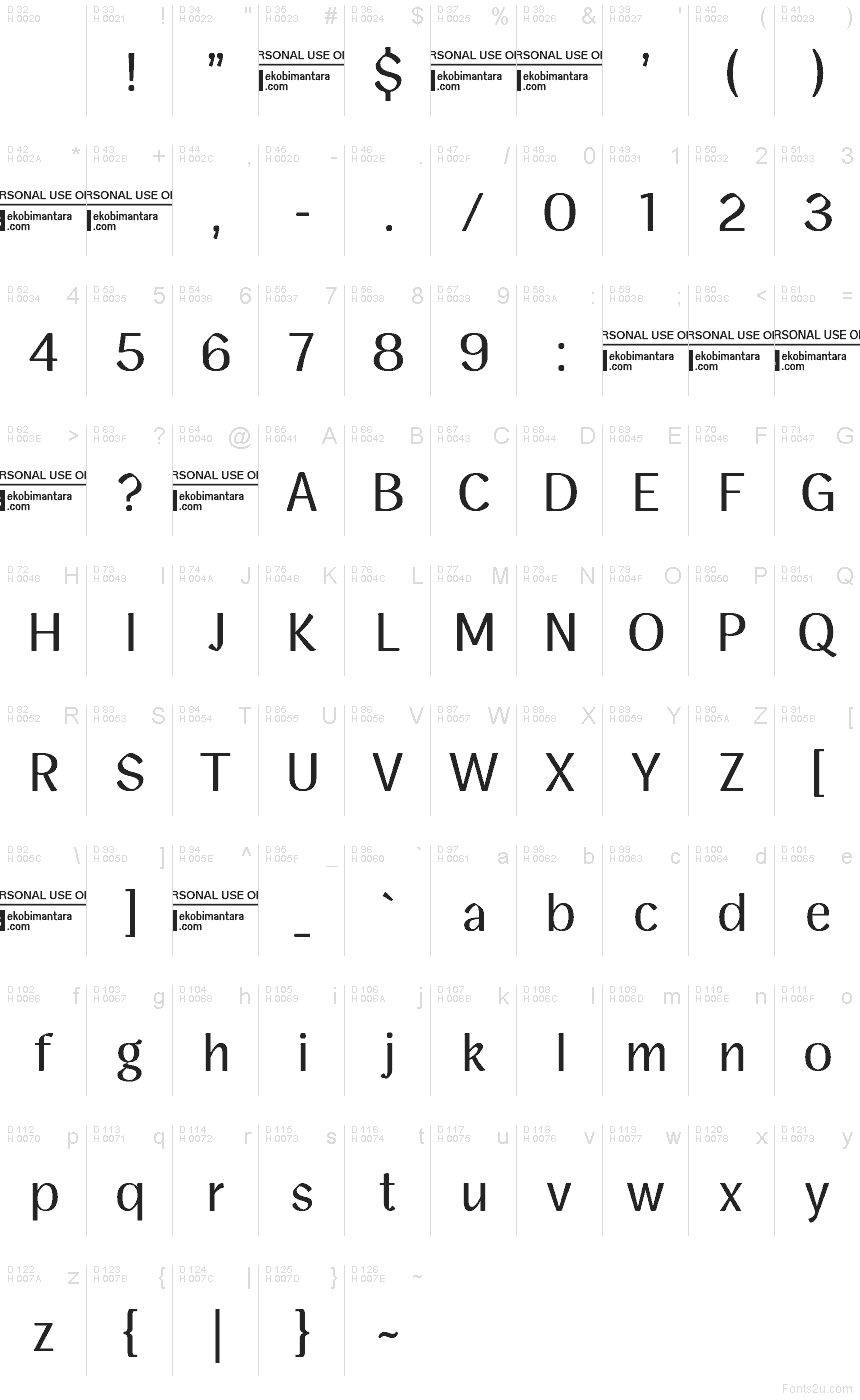
Homade Trial Medium
Homade Medium font by Eko Bimantara is a free high-contrast sans serif display font. Built within the Homade family, it stands out with sculpted counters, tapered terminals, and a subtle leaf-like rhythm that gives each letter a crafted, editorial feel. The strokes are crisp but never cold—there’s a soft pinch to the curves that adds warmth while keeping headlines razor clear.
This free font shines on branding, packaging, posters, menus, fashion lookbooks, and magazine covers. Using Homade Medium at larger sizes with slight tracking accentuates its graceful modulation, while smaller subheads still read cleanly. Pair it with a neutral grotesk from the Homade family for body copy, and let Homade Medium carry the marque and display moments.